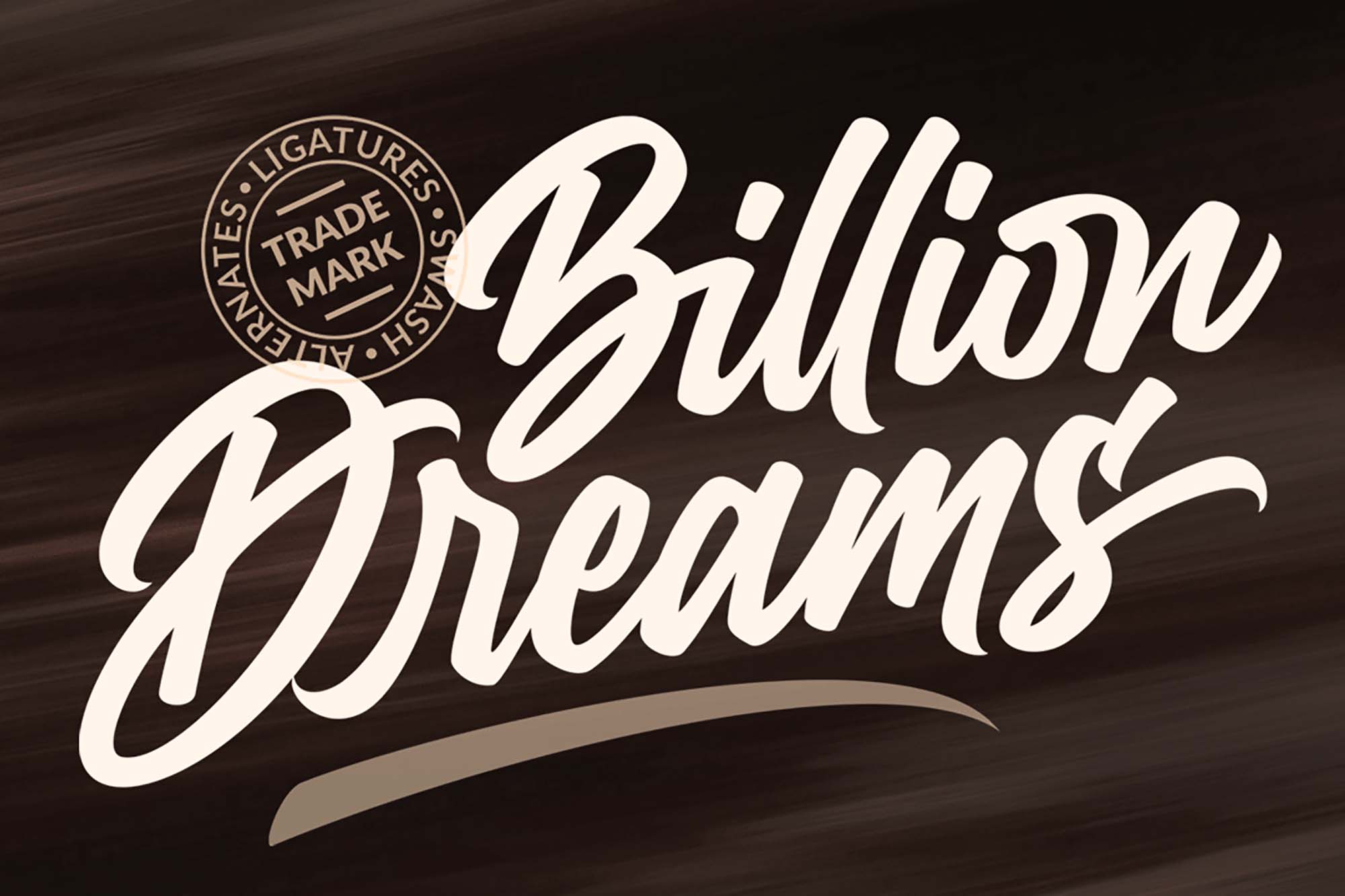
Billion Dreams is a cool logotype script font. It has thick brush strokes that gives character and personality to any graphic. It contains stylistic alternates, swash alternates, ligatures and swash characters -- all to give the font a great variability and avoid repetitiveness.
It has an extensive lingual support, covering all European Latin scripts. The font contains all characters you'll ever need, including all punctuation and numbers.
It can be used for shop signs, posters, online posts with quotes, branding presentations, etc. If a dream is a wish your heart makes, then this is a wish easily granted as you can immediately get your hands on the free version of this beautiful font and make its thick brush strokes part of your projects or purchase the premium version and download the stylistic alternates, ligatures, and swashes so you can share varied designs and give personality to any project.